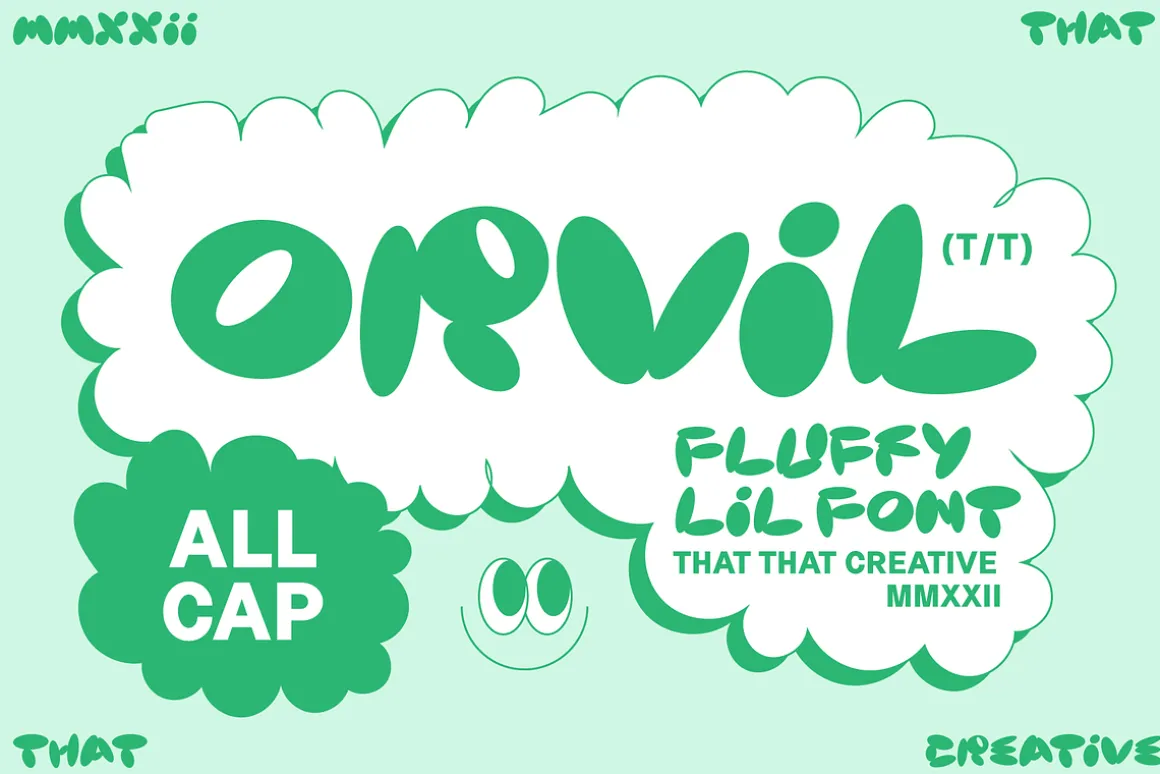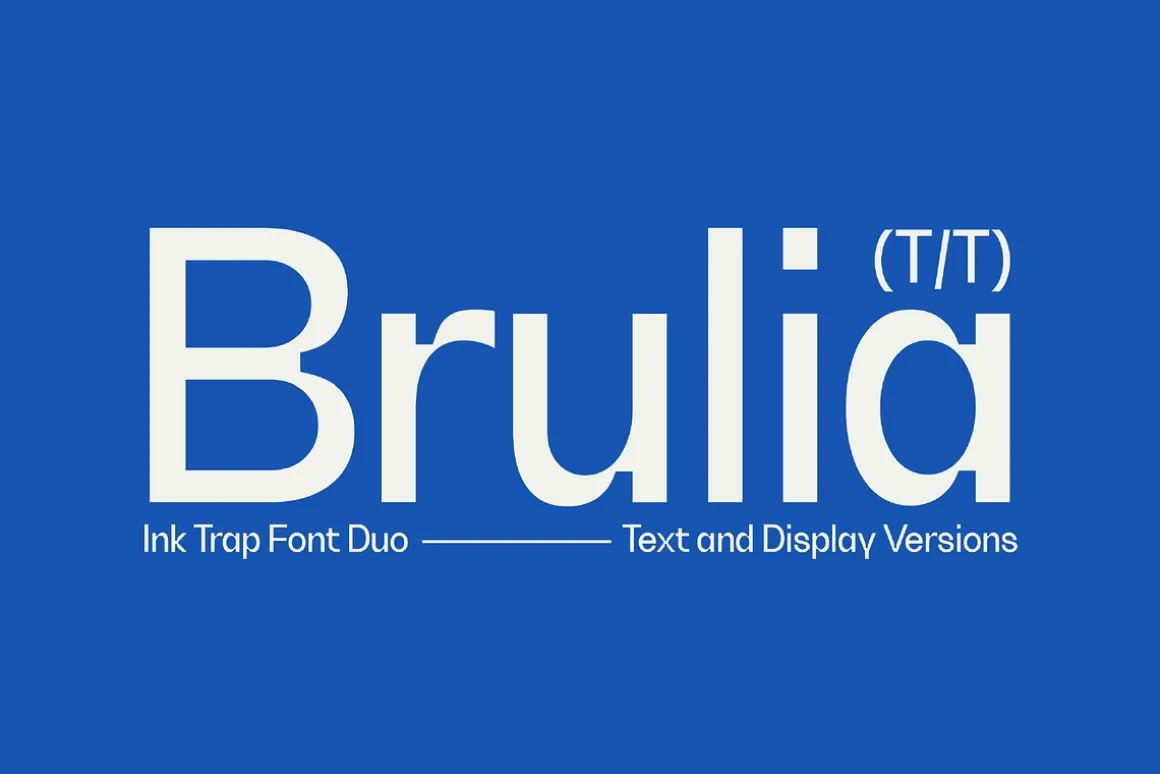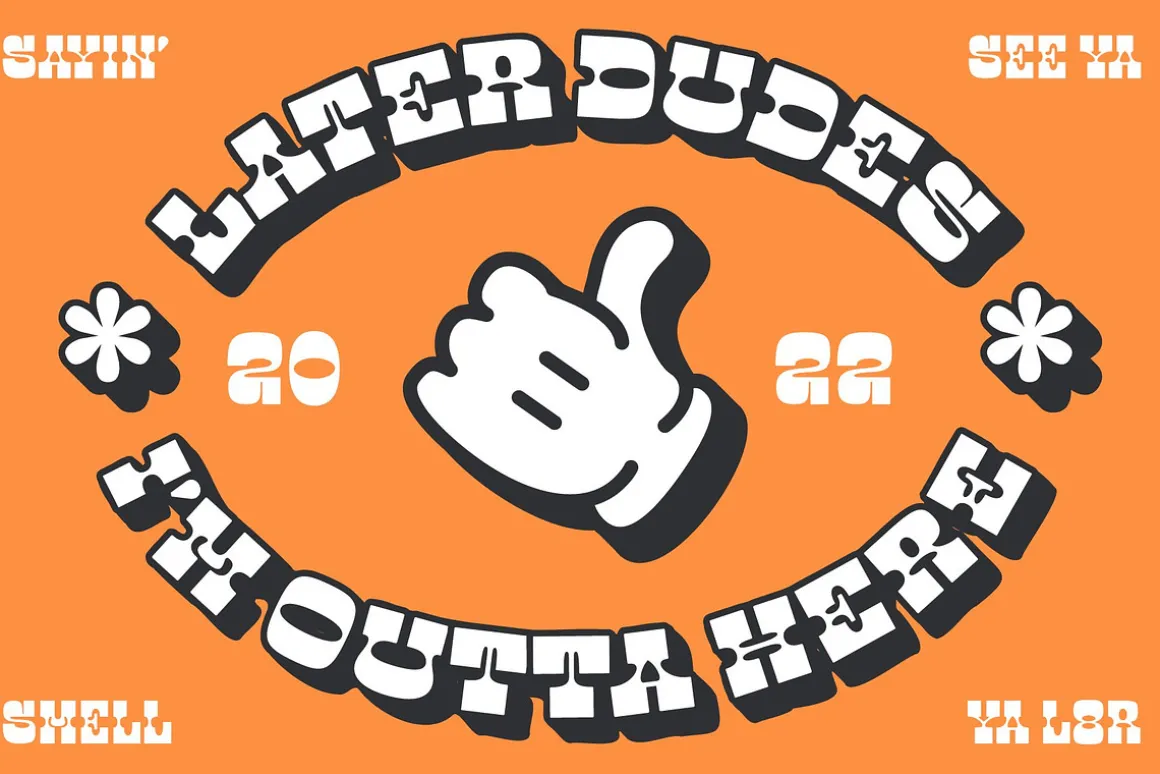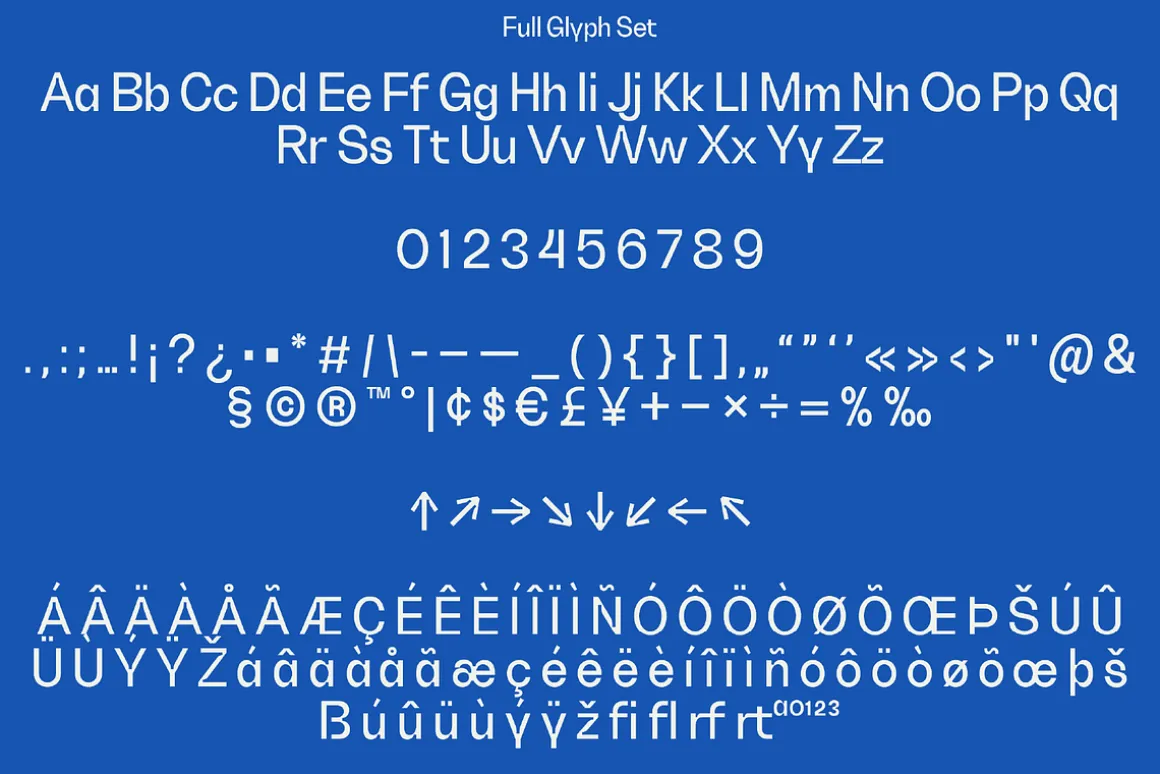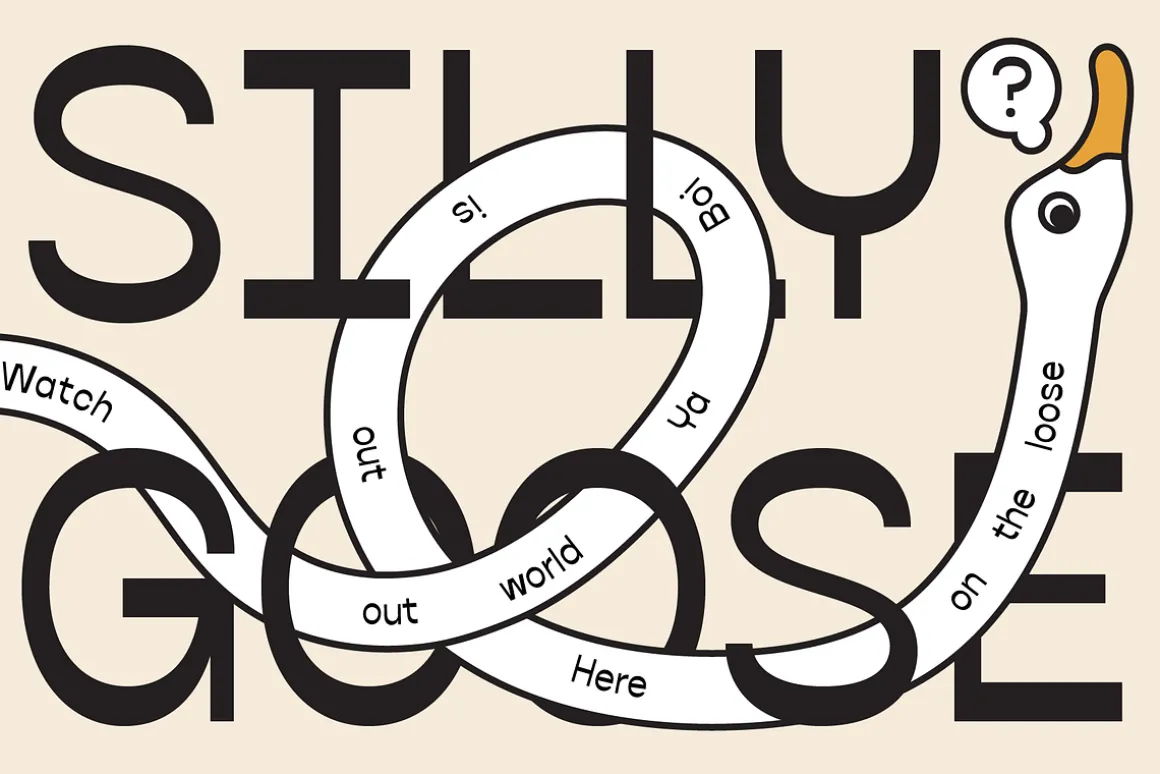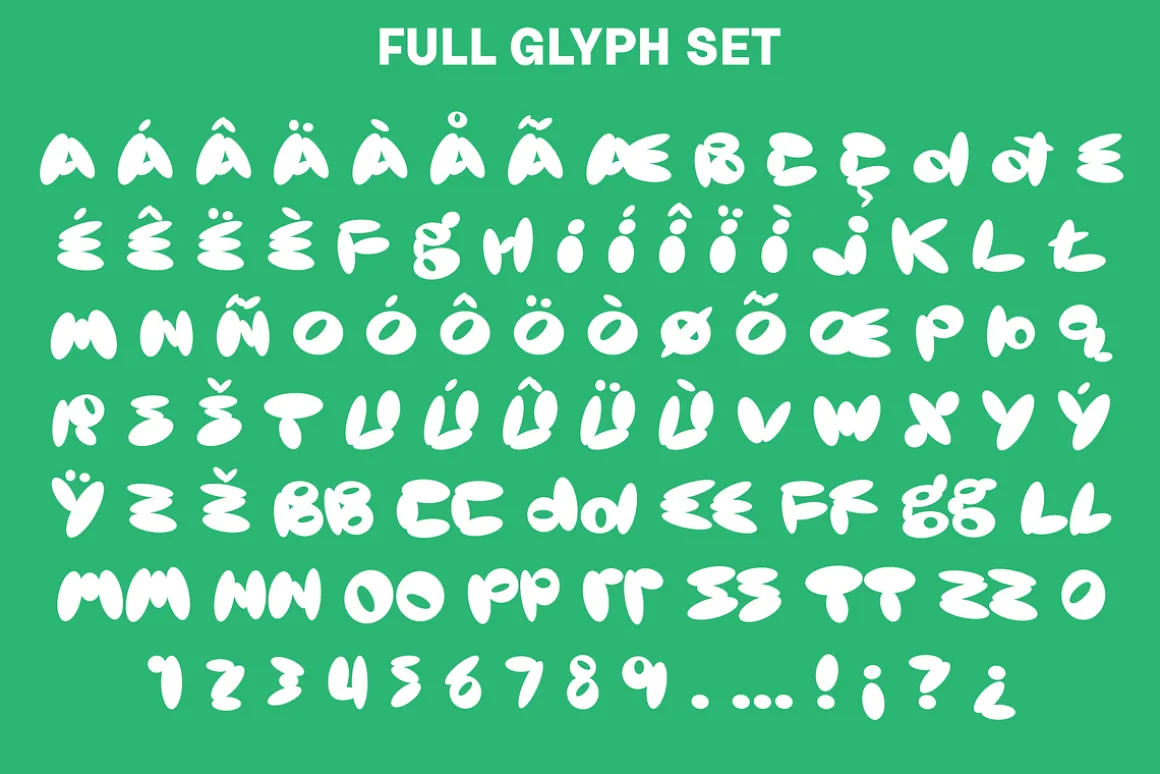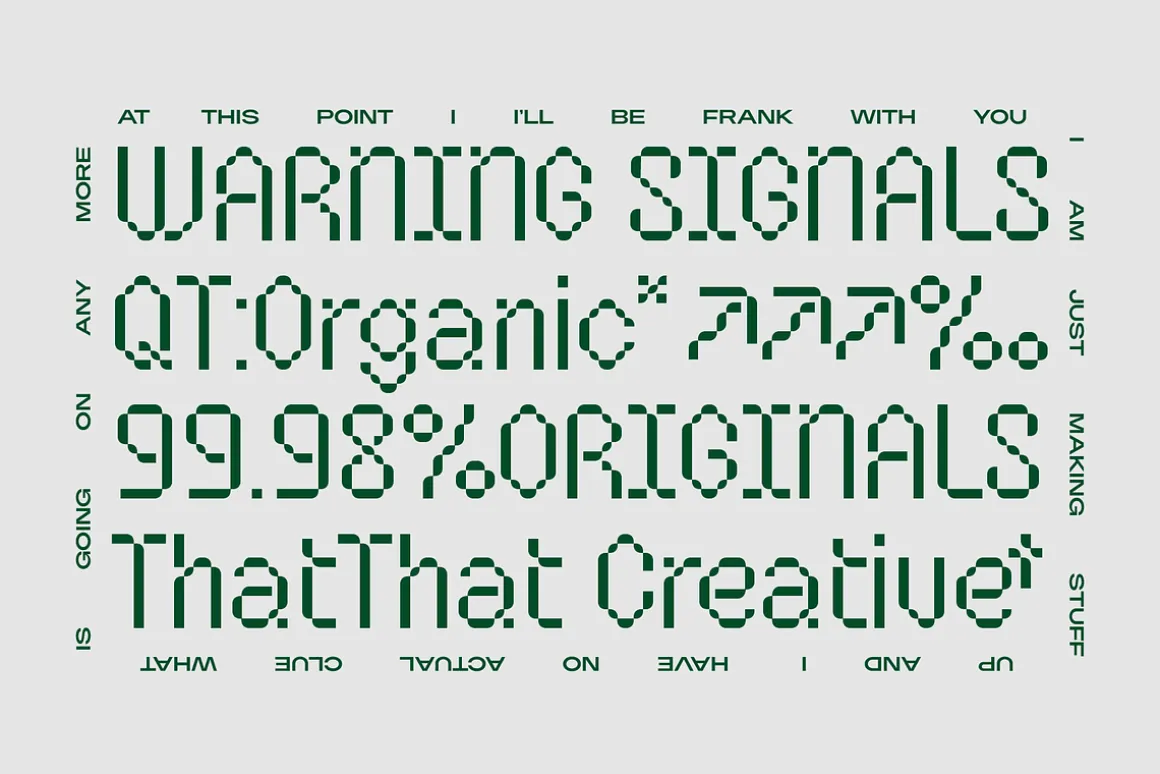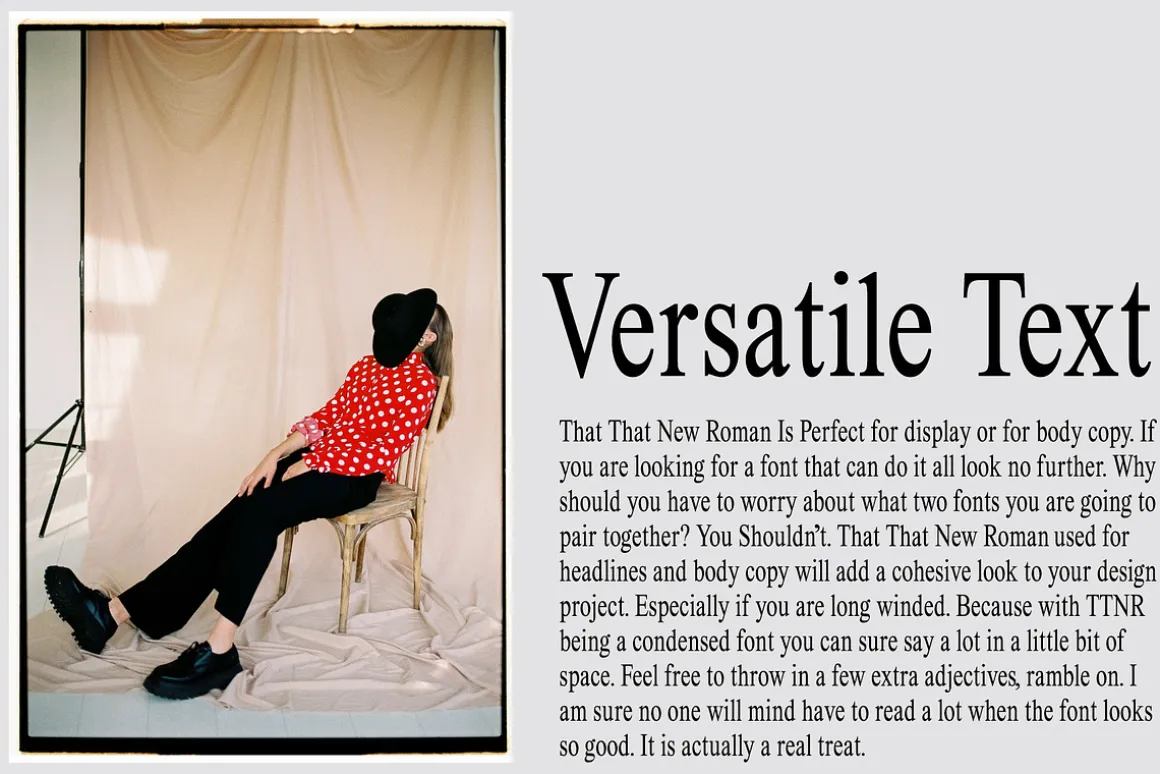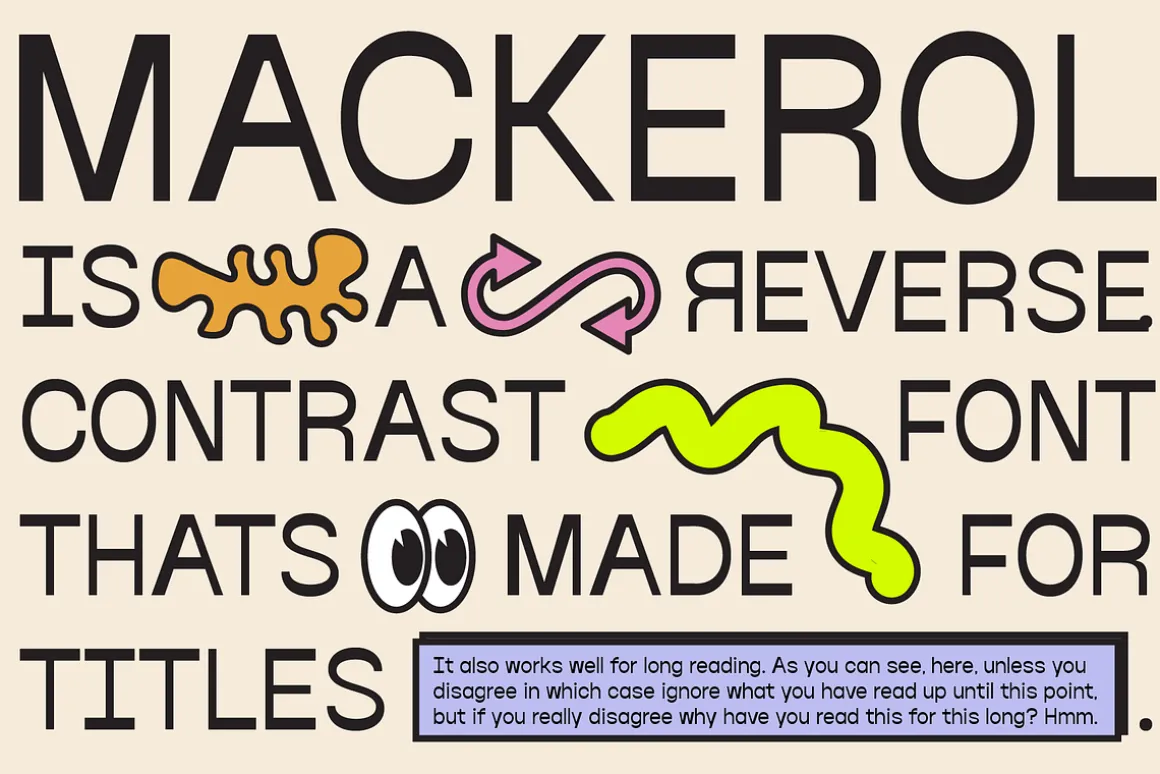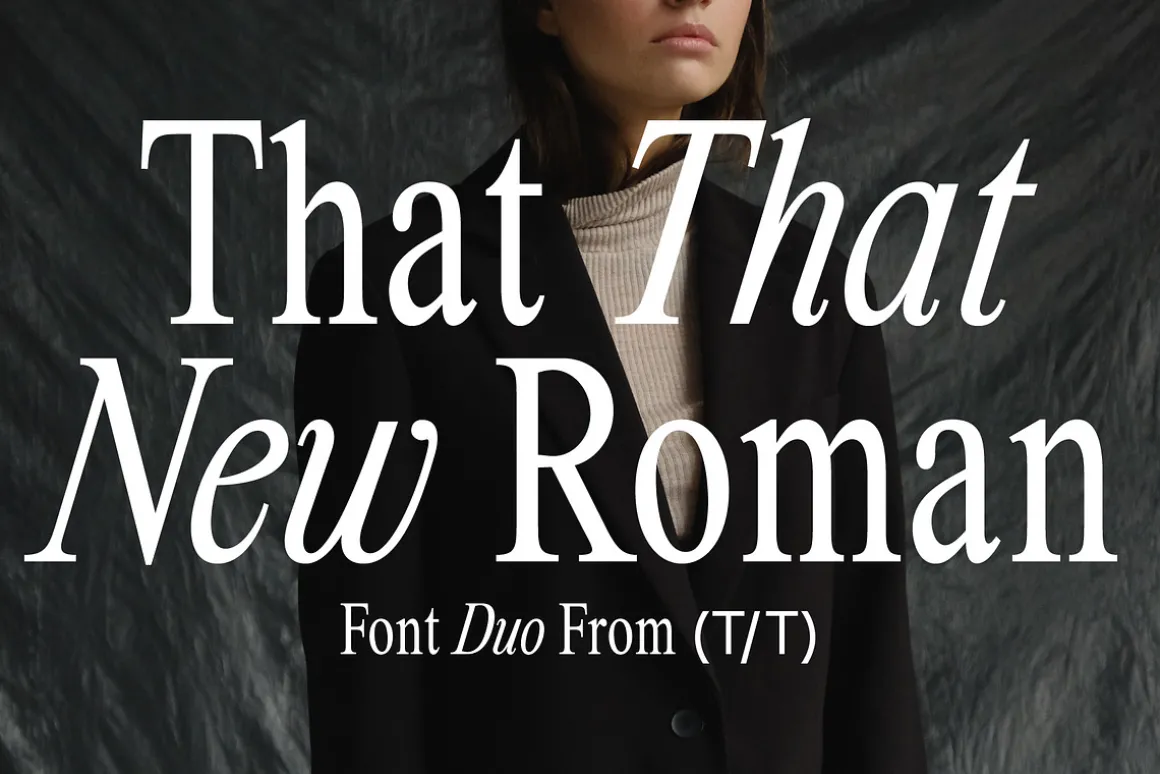
these fonts are perfect for projects like print, instagram, magazines, posters, branding, logos, web design and whatever project you want to give a modern twist.
- Fuuld
- Mackerol
- Okie Doko (3 styles + Variable)
- Orvil
- That That New Roman
- Brulia (variable)